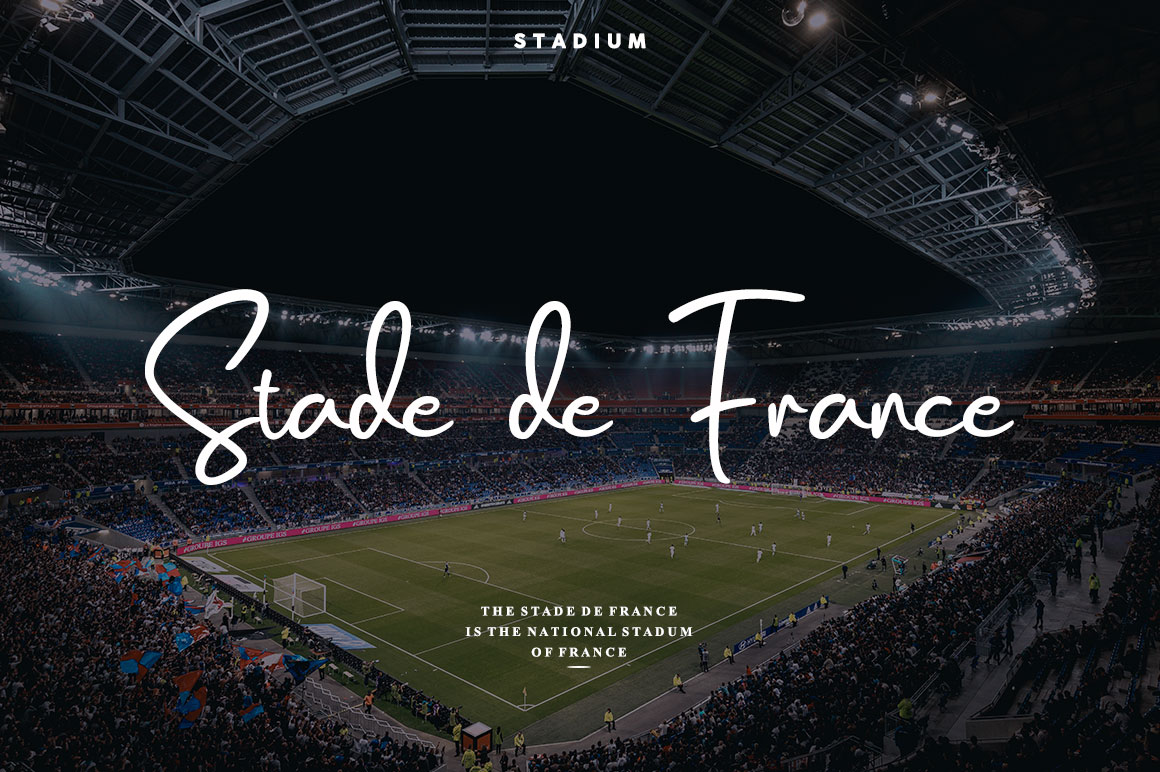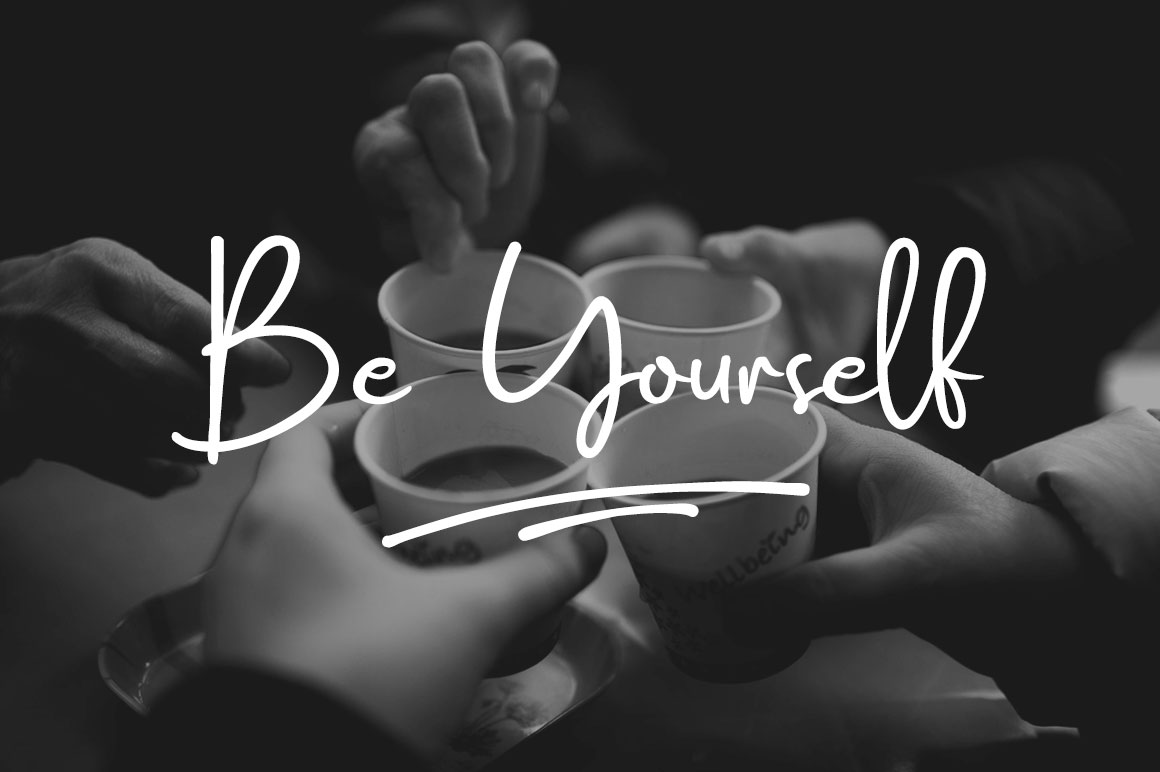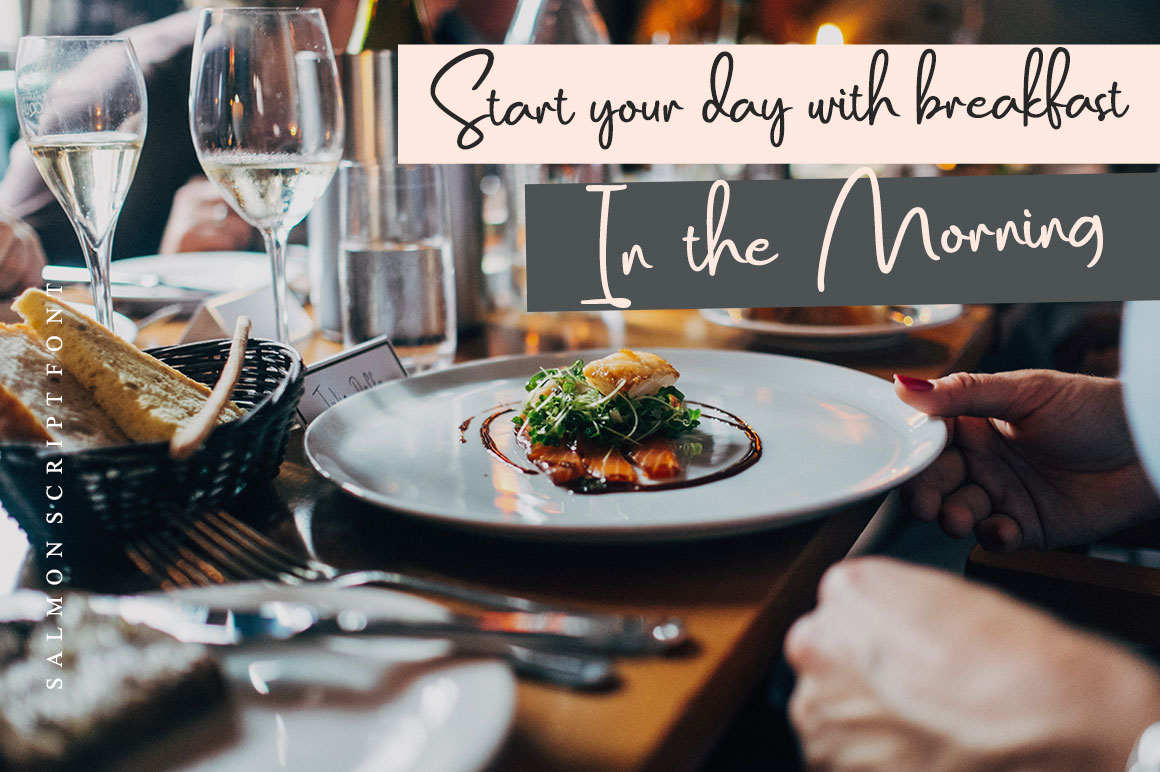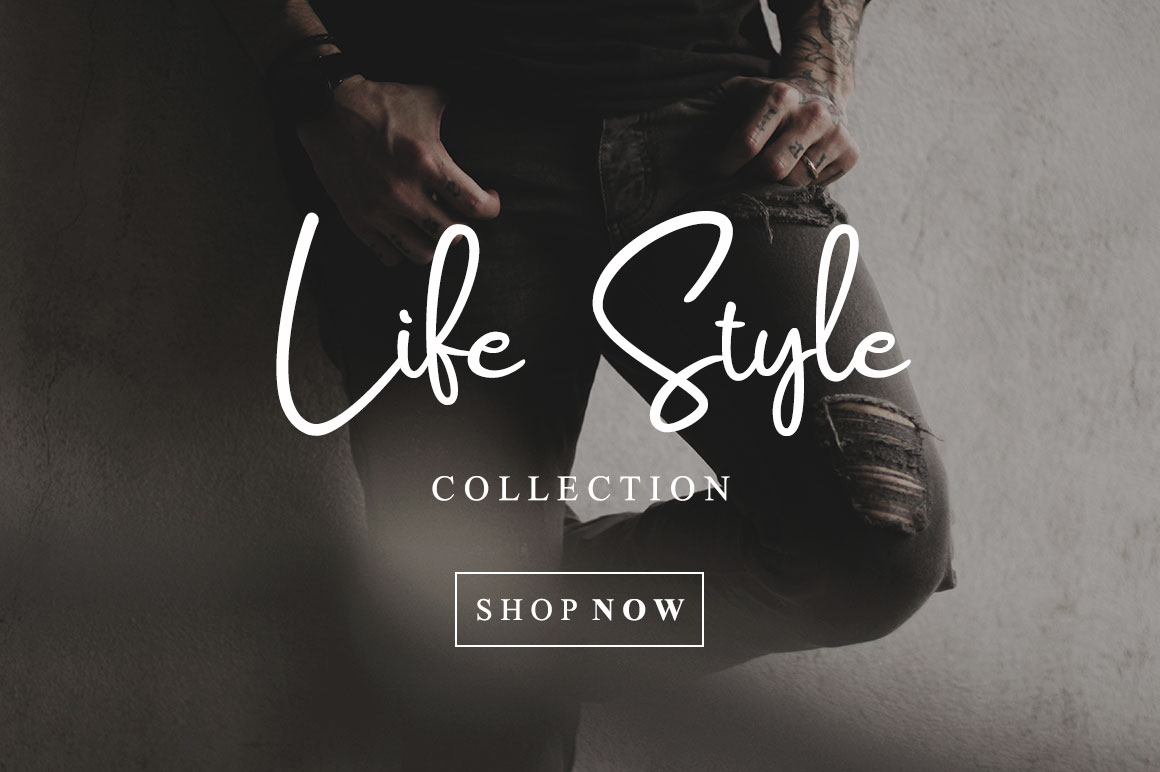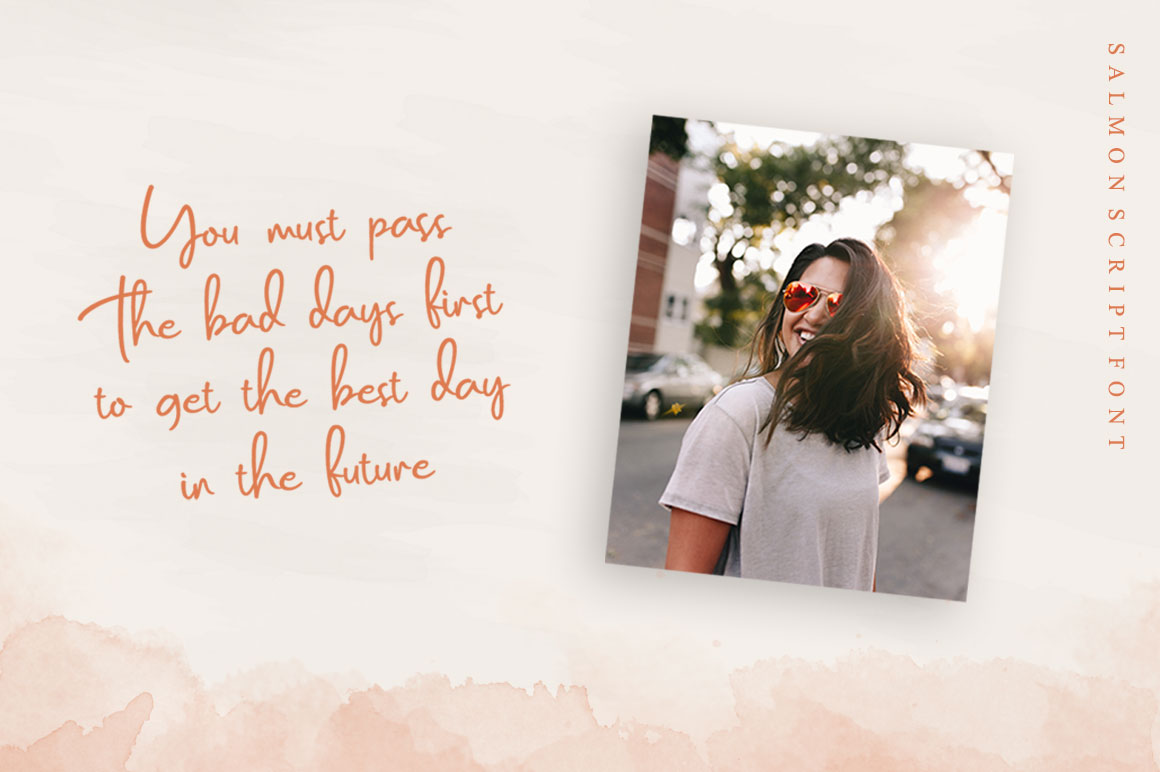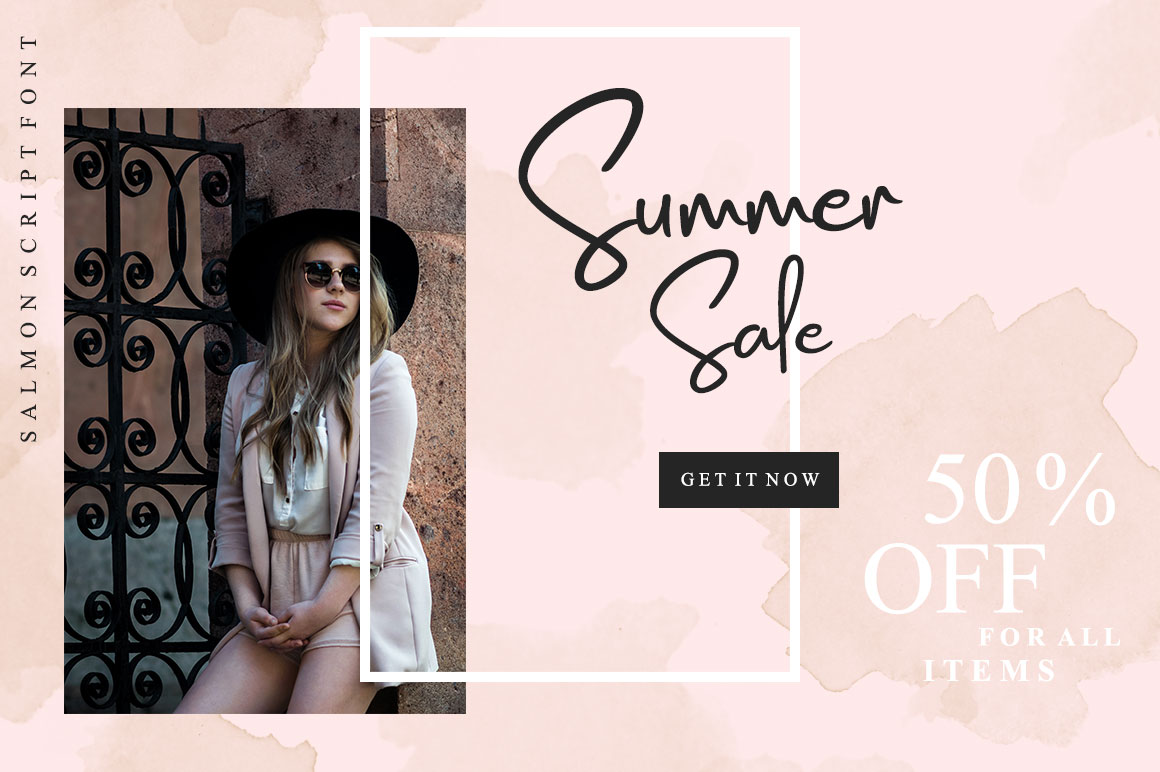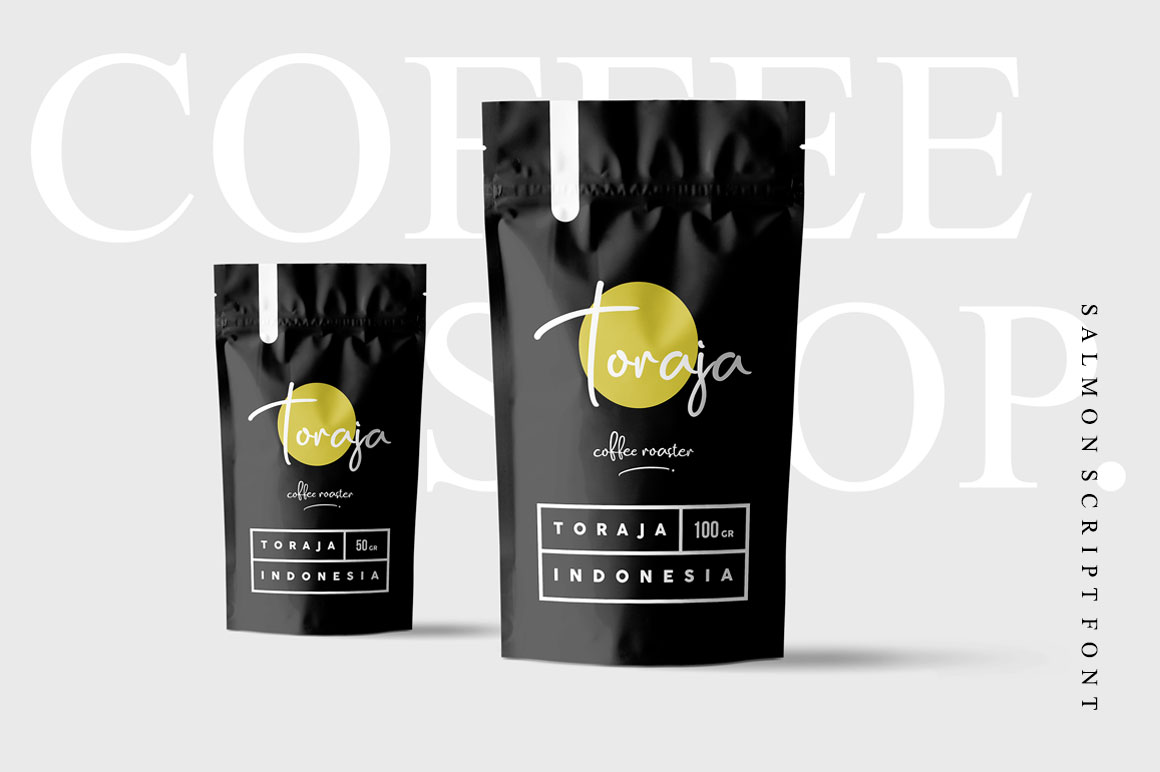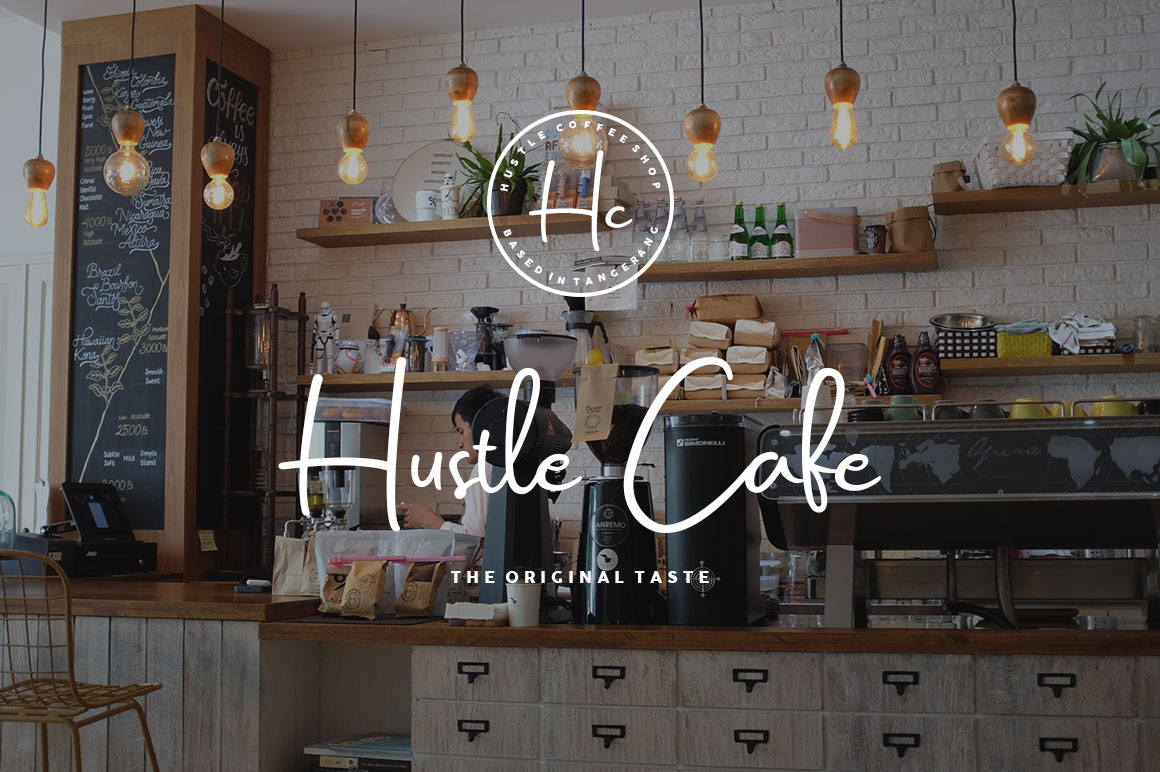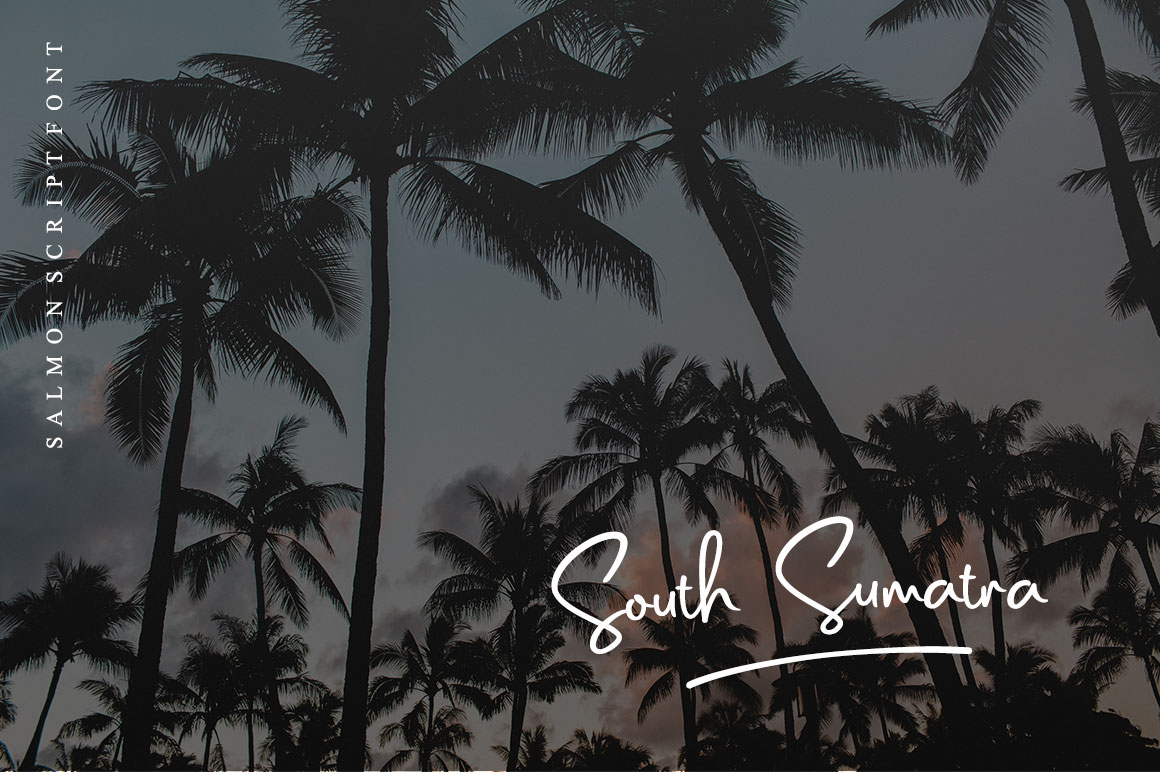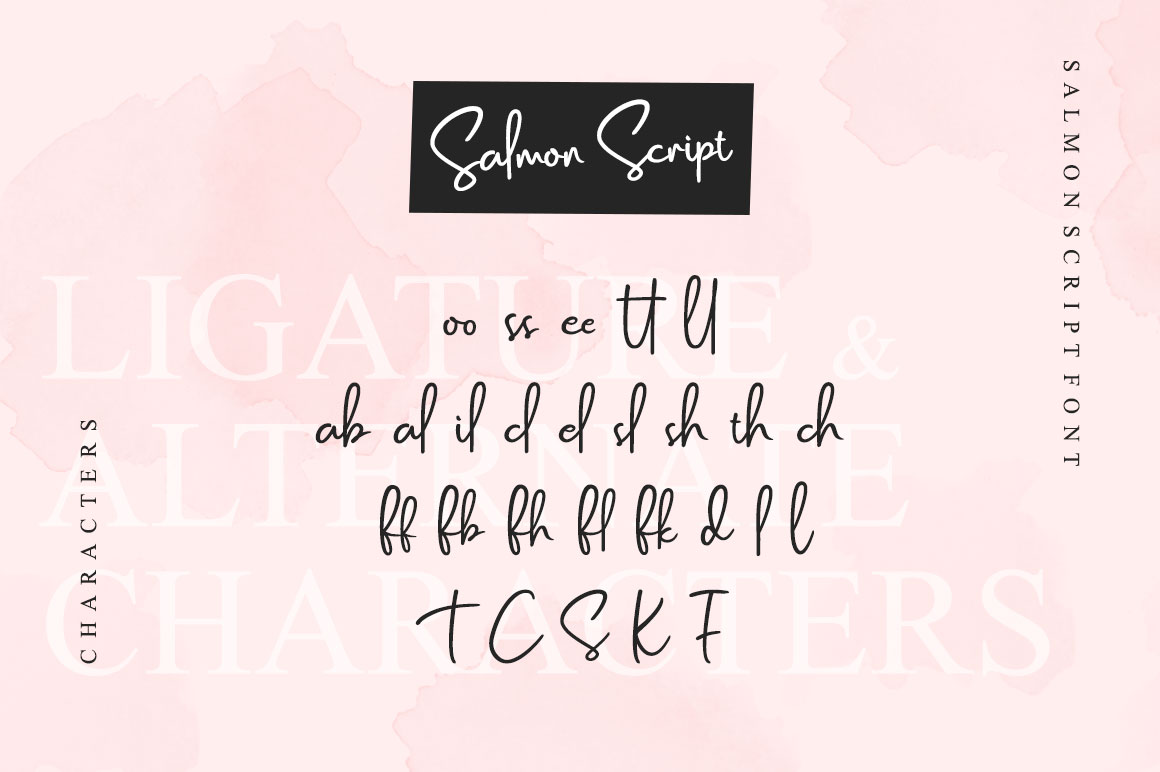
Salmon Font
About Salmon Font
Salmon is a stunning script font that exudes elegance, modernity and simple style. This font was crafted with use in logotype and branding most specifically because it looks dashing in displays of all types.